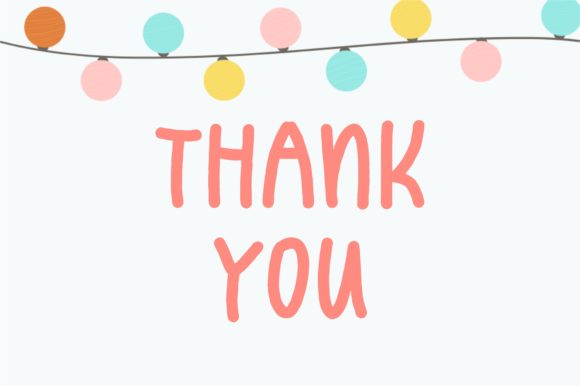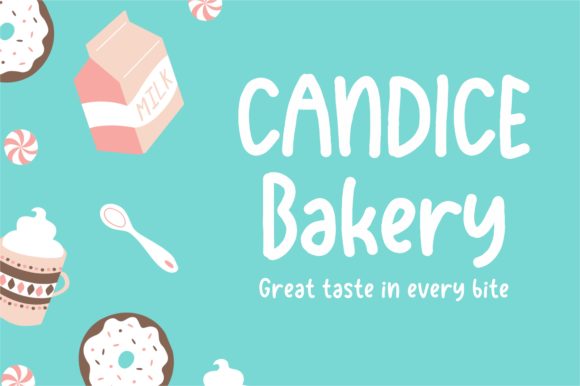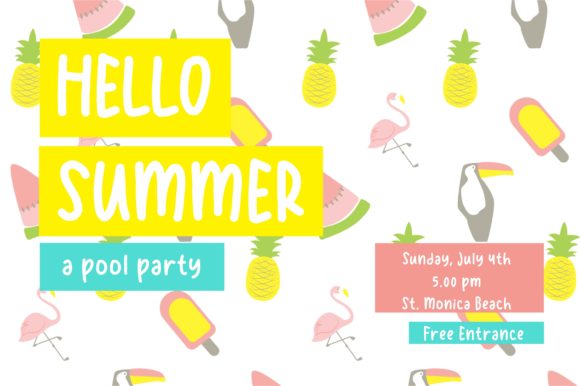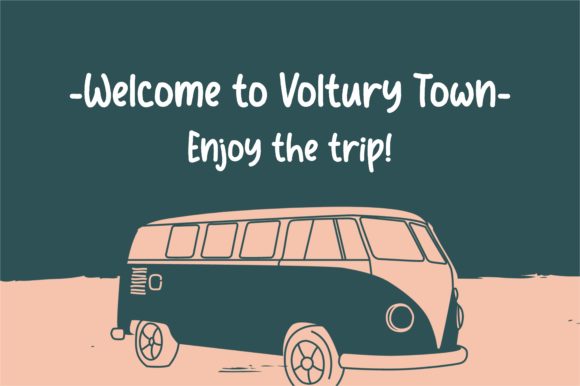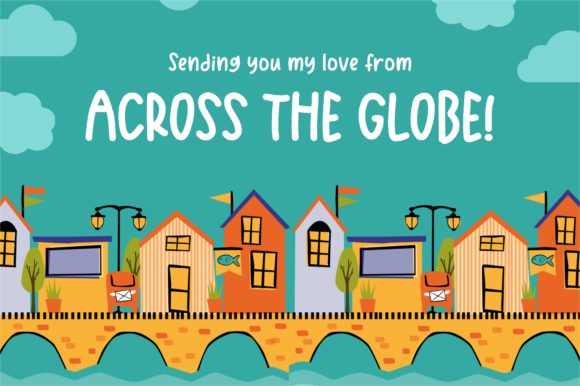
Lazy Bear Font
About Lazy Bear Font
Lazy Bear is a cute and natural handwritten font. No matter the topic, this font will be an incredible asset to your fonts’ library, as it has the potential to elevate any creation.